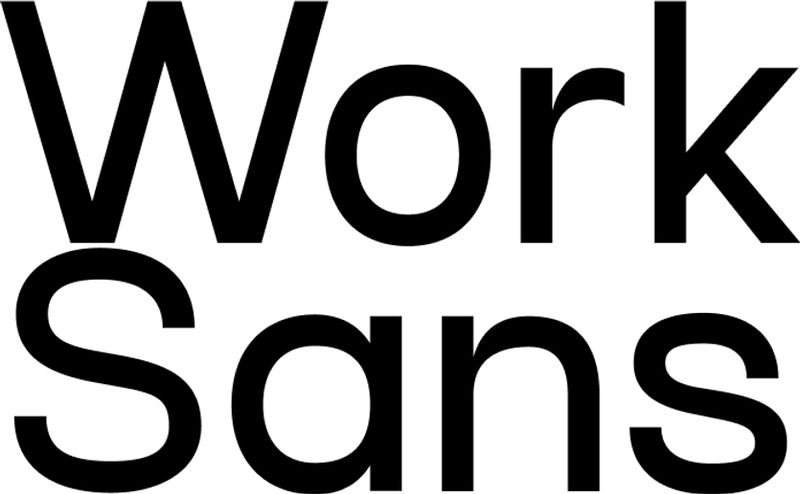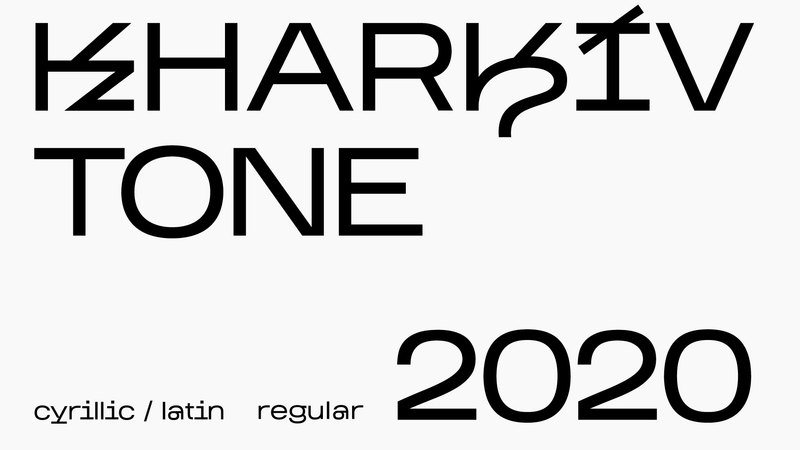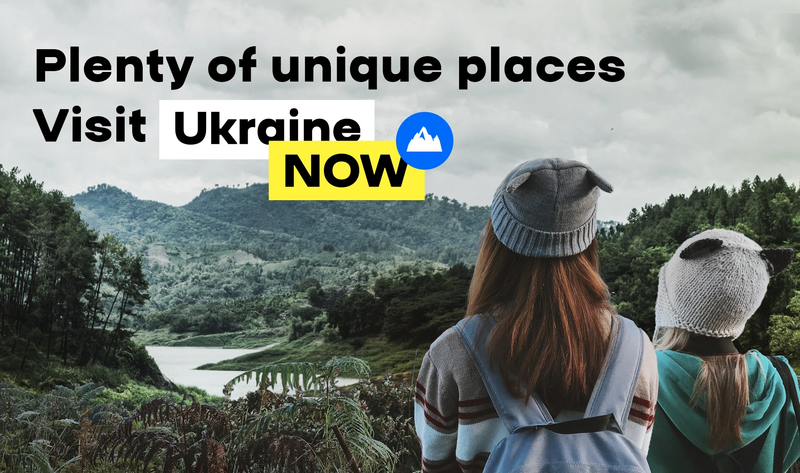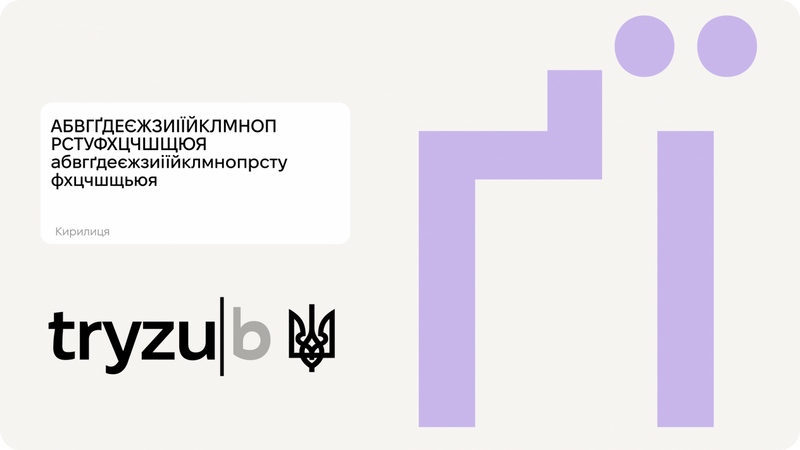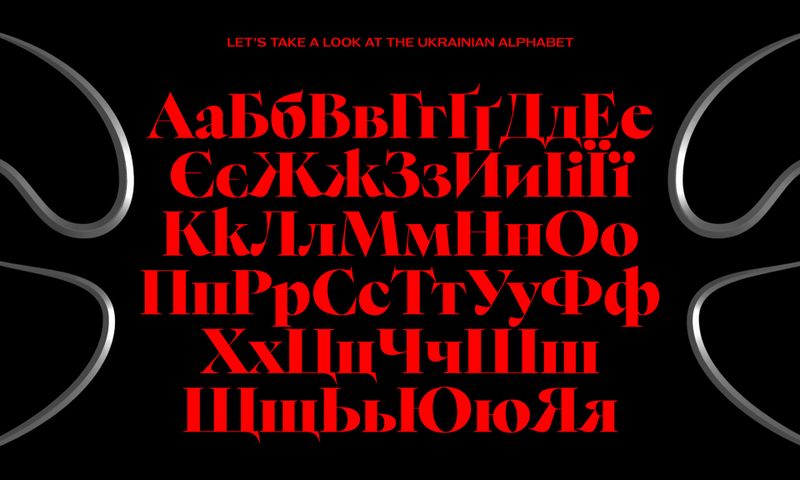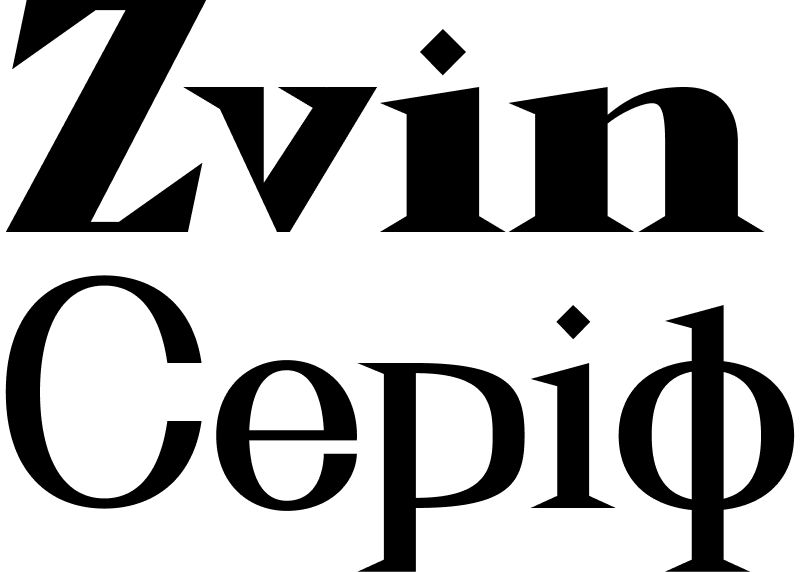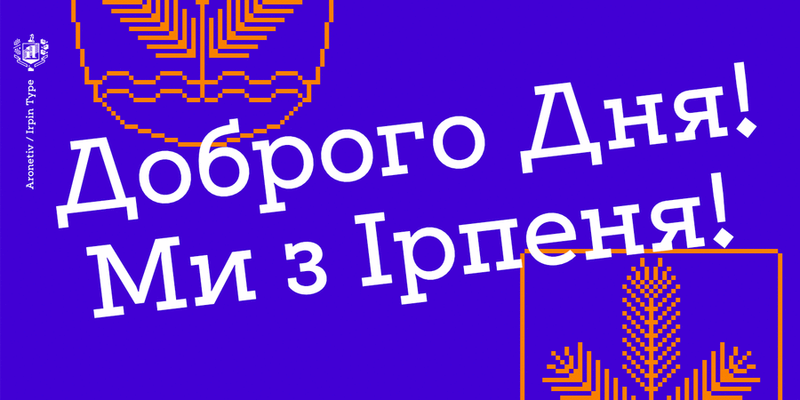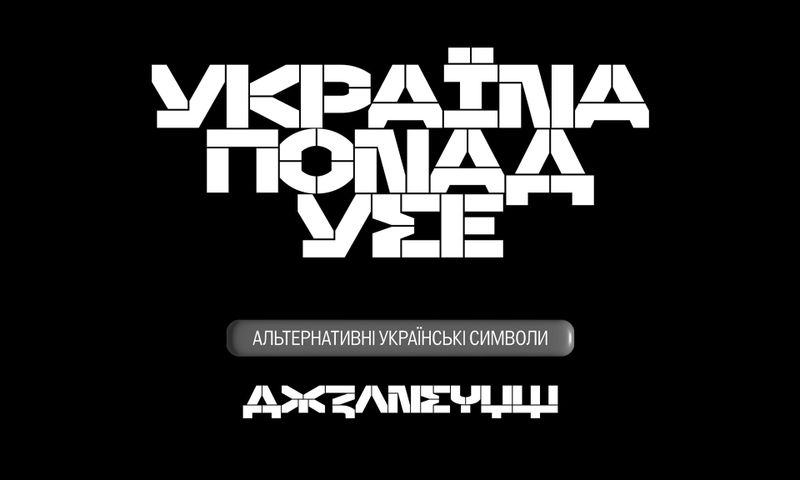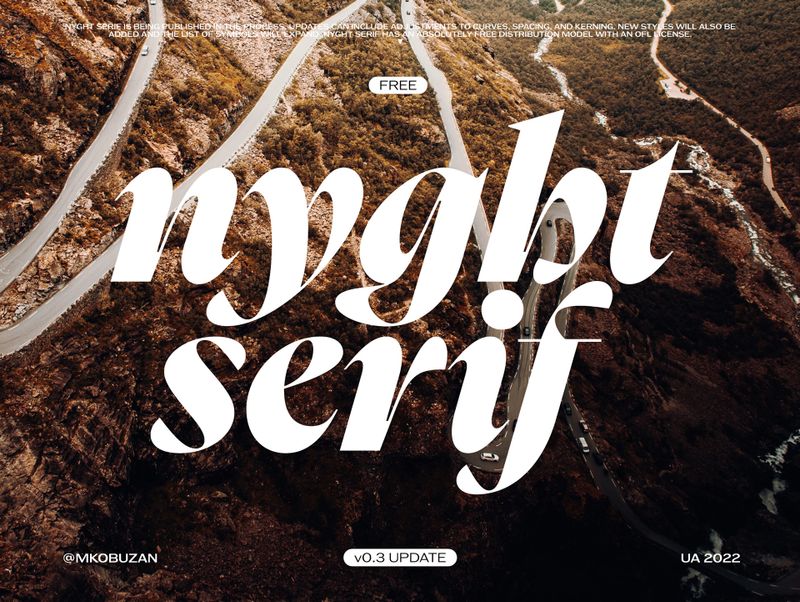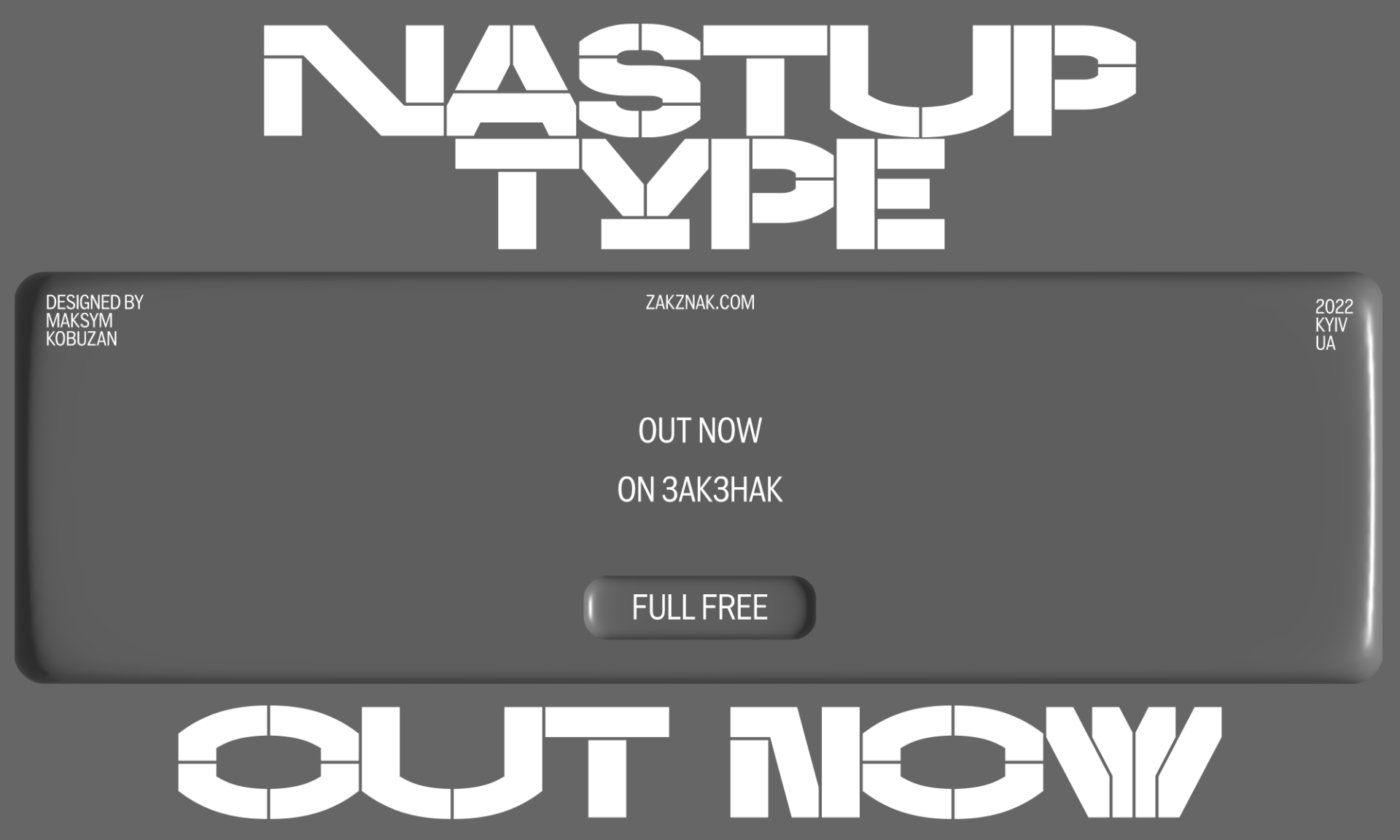
The Culture of Ukrainian Fonts
The culture of Ukrainian typography boasts a deep and storied history. For centuries, artists have expressed national identity through fonts, and this tradition continues today. The demand for Ukrainian cultural elements, both domestically and internationally, is growing rapidly.
Nyght Serif: A Free Ukrainian Font with Open Font License
Nyght Serif is a completely free font for personal and commercial use, released under the Open Font License (OFL). It is being developed progressively, with regular updates planned to enhance its features.
The font supports extended Latin characters as well as Cyrillic, focusing exclusively on the Ukrainian alphabet, making it an excellent choice for designs emphasizing Ukrainian identity.
Zvin Serif: A Sophisticated Font Inspired by Historical Typography
Zvin Serif is a unique font with variable serifs, drawing inspiration from typography between 1850 and 1960. Its mood and dynamics are based on Greek letterforms blended with modern decorative styles. Featuring sharp angles and distinctive serifs, Zvin Serif is elegant and striking, perfect for adding authentic character to any design.
Work Sans + Work Grotesk: Versatile Sans-Serif Fonts for the Web
Work Sans is a highly versatile sans-serif font designed specifically for web use. It features a core set of Latin and Cyrillic characters, making it ideal for modern digital projects where clarity and readability are essential.
Paired with Work Grotesk, this font family provides a comprehensive solution for clean and functional web typography.
Nastup Basic: A Free Modular Stencil Font with a Technical Edge
Nastup Basic is a free modular stencil sans-serif font inspired by technical stencil signage on walls and construction details. The name "Nastup" translates to "advance" in Ukrainian, reflecting its bold and industrial aesthetic.
With minimal spacing, it works exceptionally well in narrow layouts, especially with tight leading. Designers can also add variety by using alternative wide or open characters. Nastup Basic supports extended Latin, basic Cyrillic, Greek alphabets, and features an alternative character set specifically tailored for the Ukrainian alphabet.
Kyiv Region Typeface: A Free Font Merging History and Modernity
The Kyiv Region Typeface is an original free font developed specifically for the territorial branding of Kyiv Oblast. Created by White Studio Design, it masterfully combines historical depth with avant-garde experimentation.
The typeface draws on semi-uncial and cursive forms typical of the Kyivan Rus and Ukrainian Baroque periods, blending them with the geometric constructivism of the 20th century—a style enjoying a modern revival.
The result is a contemporary geometric sans-serif font featuring strokes, alternates, ligatures, and historical forms. It is perfect for thematic signage, advertisements, packaging, souvenirs, and even Church Slavonic historical texts.
- Author: Dmytro Rastvortsev
Irpin Type: A Bold Tribute to the City of Irpin
Irpin Type is a unique font inspired by the spirit of the city of Irpin. It is designed for versatile everyday use, making it suitable for books, logos, corporate branding, posters, and presentations where a bold and confident impression is needed.
This font is perfect for large-scale designs but also retains excellent legibility in smaller sizes. A modern slab serif with geometric shapes, Irpin Type is influenced by the Ukrainian avant-garde movement of the 20th century, giving it a distinctive and artistic character.
- Author: Aleksey Popovtsev
Fixel: A Font That Combines Technology and Human Touch
At MacPaw, they believe technology simplifies life and brings joy. They designed the Fixel and Hoover fonts to reflect the synergy between humans and technology. The names were inspired by two beloved cats, Fixel and Hoover, who spent over a decade with the MacPaw family, and whose personalities influenced the design of these fonts.
Fixel is a versatile typeface with two styles—Text and Display—and nine weights ranging from Thin to Black. Its design uniquely combines geometric and humanist grotesque elements, featuring open letterforms, clarity, wide proportions, and low contrast. The font's personality merges precision, restraint, and functionality with a friendly, dynamic, and playful essence, making it perfect for various applications.
- Author: MacPaw
- Font page: Fixel by MacPaw
- Free Font Download: MacPaw
Lutsk Typeface: A Signature Font for the City of Lutsk
The Lutsk Typeface is the official font of Lutsk, designed by Kyrylo Tkachev. It complements the city's recognizable identity elements, aiming to boost its appeal among tourists and promote it beyond the region.
This decorative typeface includes two sets of uppercase letters in Cyrillic and Latin alphabets. It is best suited for short texts (up to one sentence). Its design draws inspiration from Ukrainian book and magazine graphics from the first half of the 20th century, reflecting a blend of cultural heritage and modern design.
- Author: Kyrylo Tkachev
- Font page: Rentafont
- Free Font Download: Rentafont
Ermilov Typeface: A Bold Geometric Font for Ukraine Now
To speak about Ukraine today, we need a distinctly Ukrainian font. Ermilov was created specifically for the Ukraine Now brand.
This modern, bold geometric grotesque features unique angled cuts on its letterforms. The design is inspired by the works of Vasyl Yermilov, a renowned Ukrainian constructivist artist, seamlessly combining contemporary aesthetics with historical significance.
- Author: Kyrylo Tkachov
- Font page: Banda Agency
- Free Font Download: Dropbox
Namu Typeface: A Font Rooted in Ukrainian Heritage
Namu was created by Dmytro Rastvortsev in 2018 for the National Art Museum of Ukraine. Its design is the result of extensive research into the museum's collection and the forms of ancient lettering. The typeface features multiple styles, each reflecting different historical eras, making it a unique representation of Ukraine's cultural and typographic legacy.
- Author: Dmytro Rastvortsev
- Font page: Behance
- Free Font Download: Google Drive
Kharkiv Tone: A Font Inspired by the Spirit of Kharkiv
Kharkiv Tone, designed by Kateryna Drozd, draws inspiration from graffiti, technical inscriptions, and handwritten notes found on the walls of Kharkiv. This typeface captures the essence of the city, blending seemingly incompatible elements into a unified and expressive "voice of Kharkiv."
- Author: Kateryna Drozd
- Font page: Behance
- Free Font Download: Google Drive
Arsenal Font: A Modern Free Ukrainian Typeface by Andriy Shevchenko
Arsenal is a modern, free Ukrainian business font designed by Andriy Shevchenko in 2012. This typeface offers a clean and professional aesthetic, making it ideal for various business and design projects. Since its release, Arsenal has been added to the Google Fonts library, providing easy access for designers worldwide.
Mariupol Typeface: A Geometric Grotesque for City Branding
The Mariupol Typeface was designed by Andriy Shevchenko specifically for the branding of Mariupol. This geometric grotesque font is inspired by poster graphics and modern universal typefaces, combining bold aesthetics with functional versatility. It reflects the city's contemporary and dynamic spirit while honoring its unique identity.